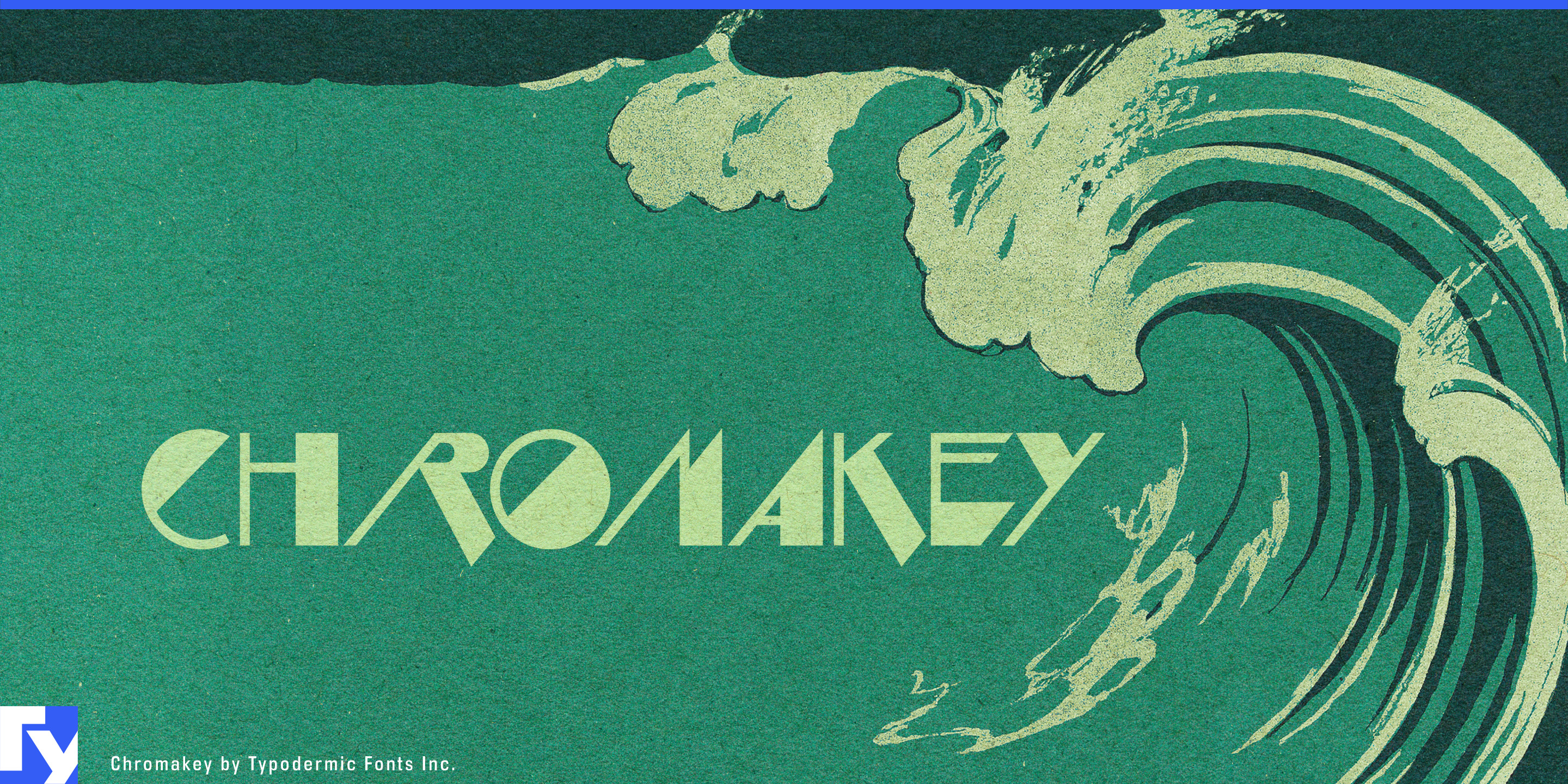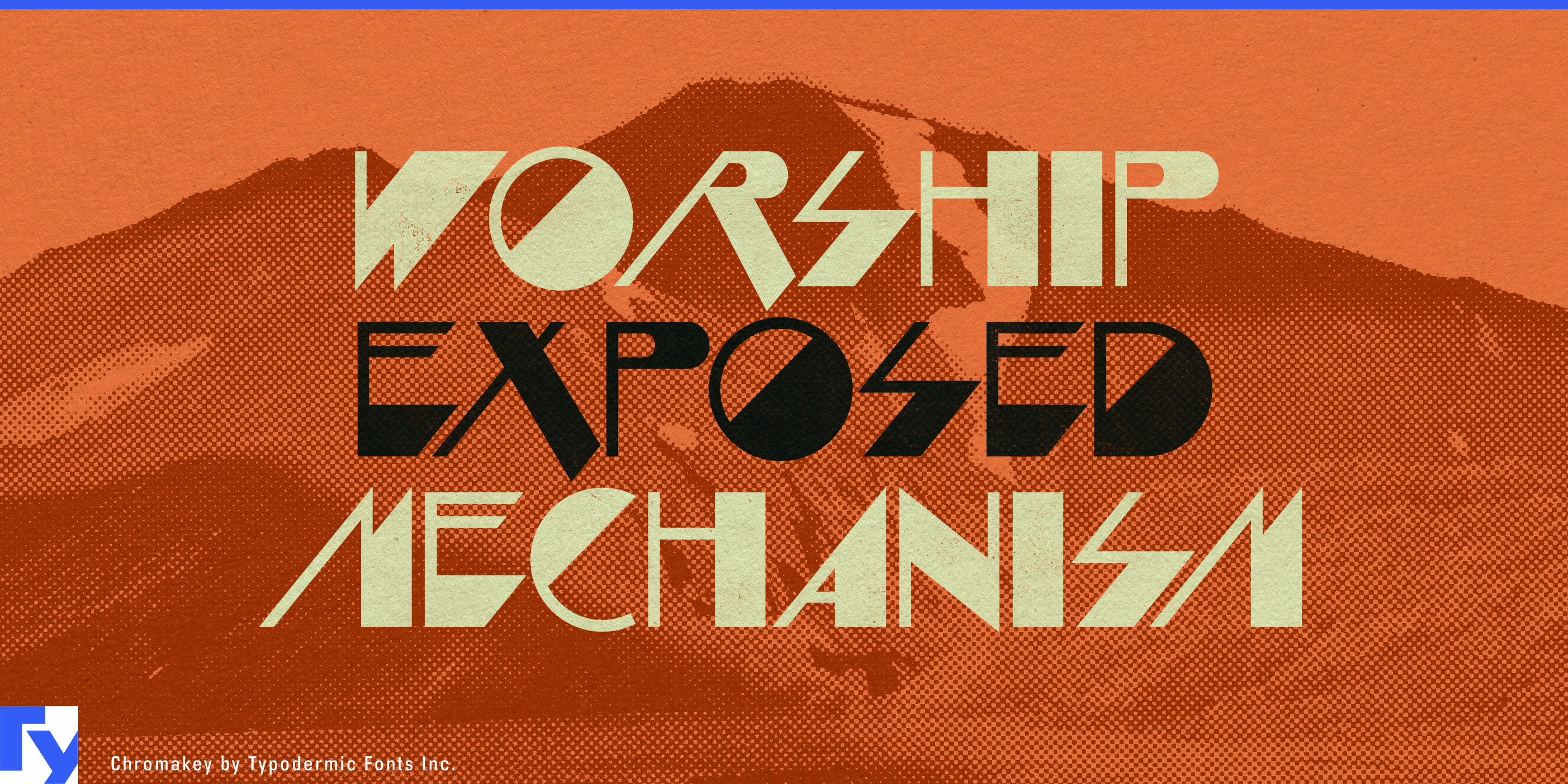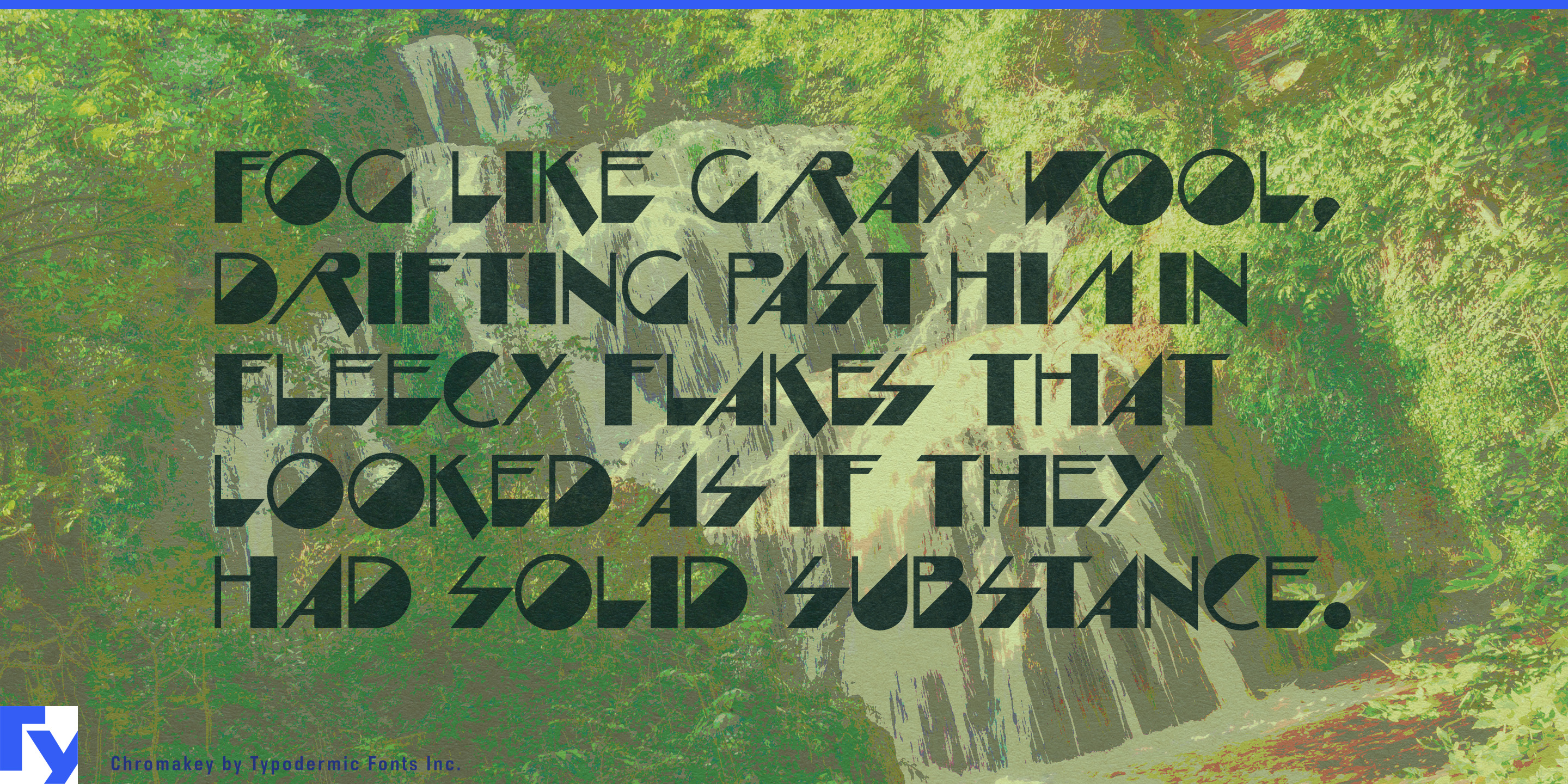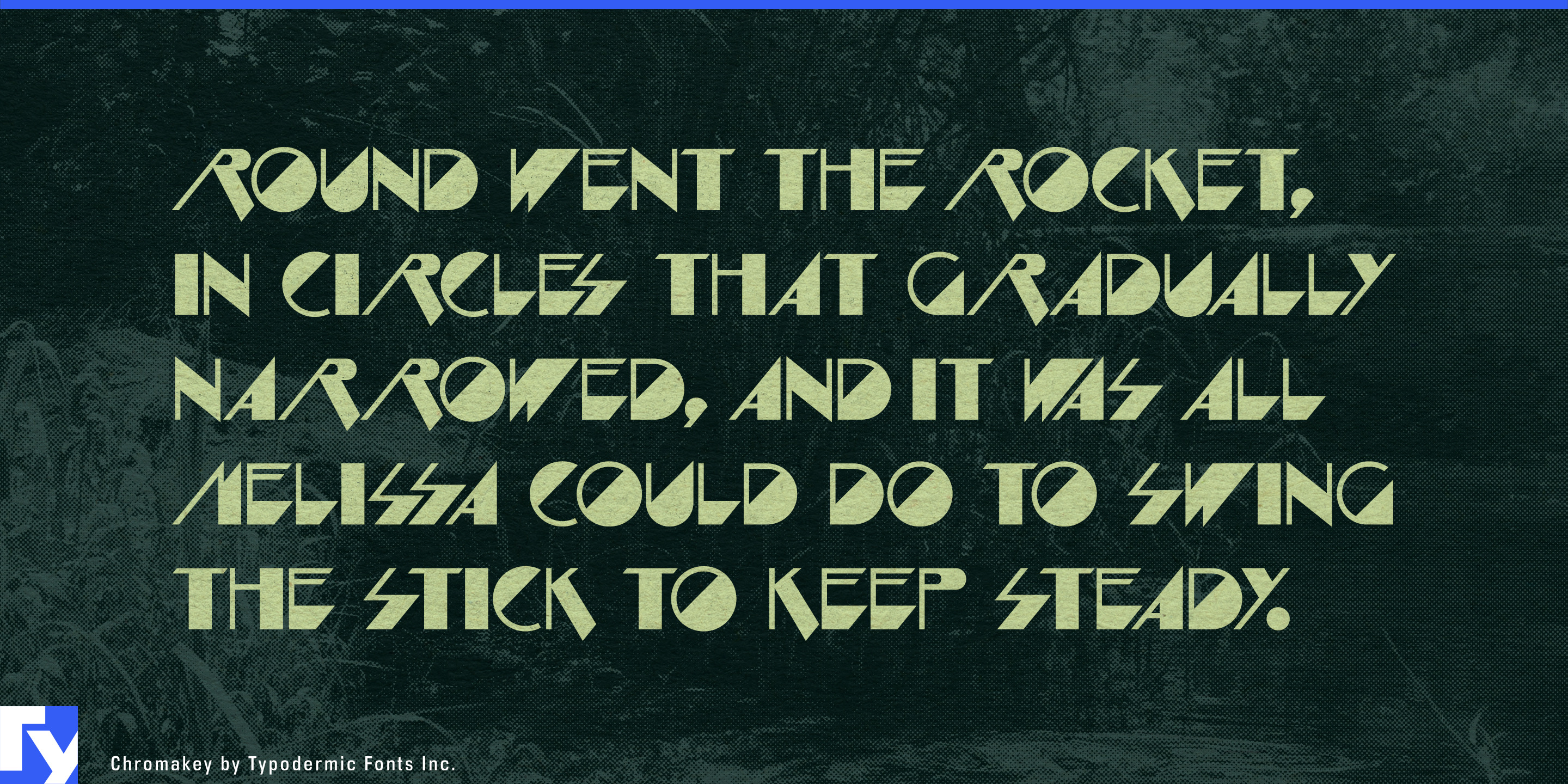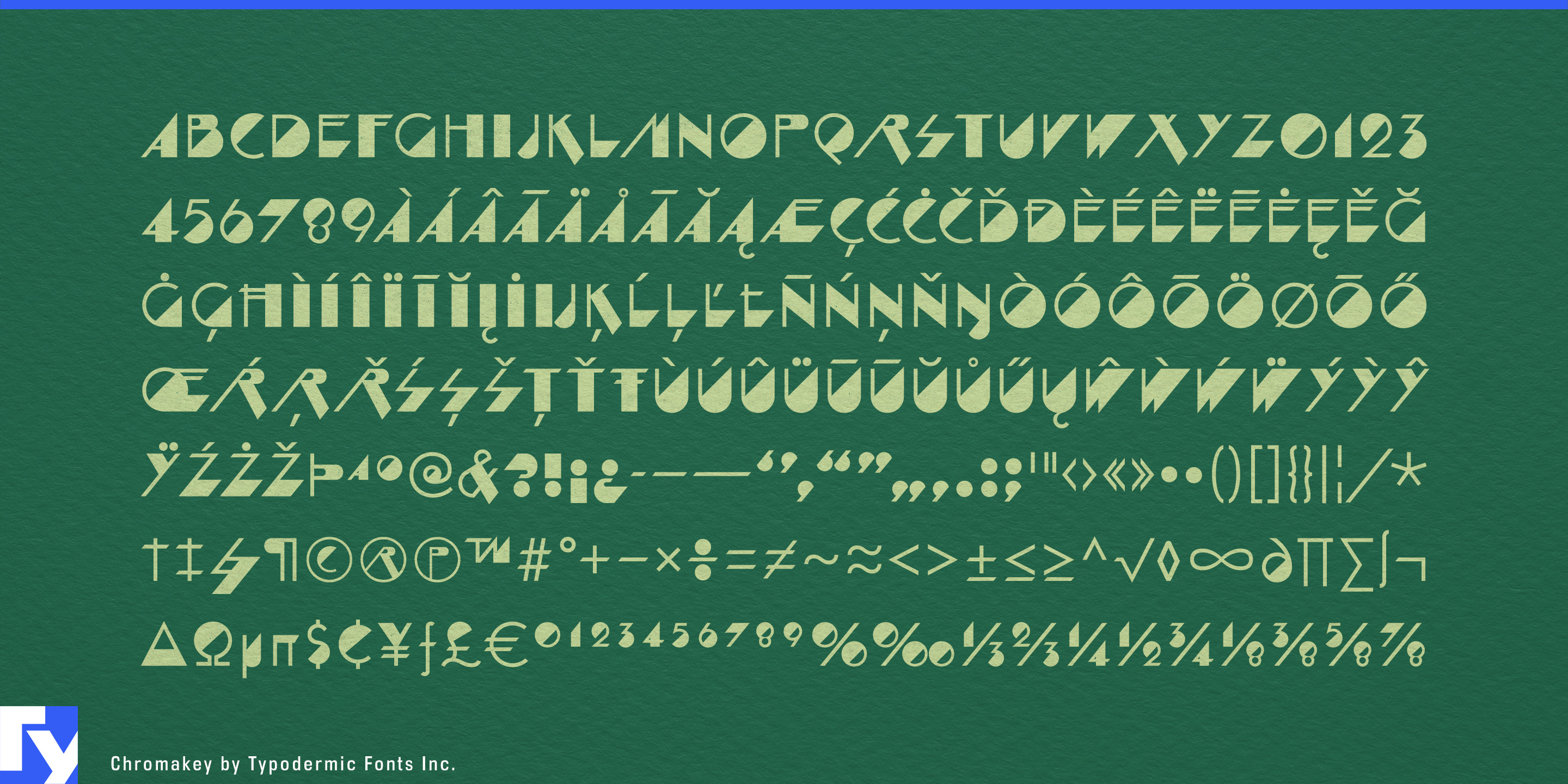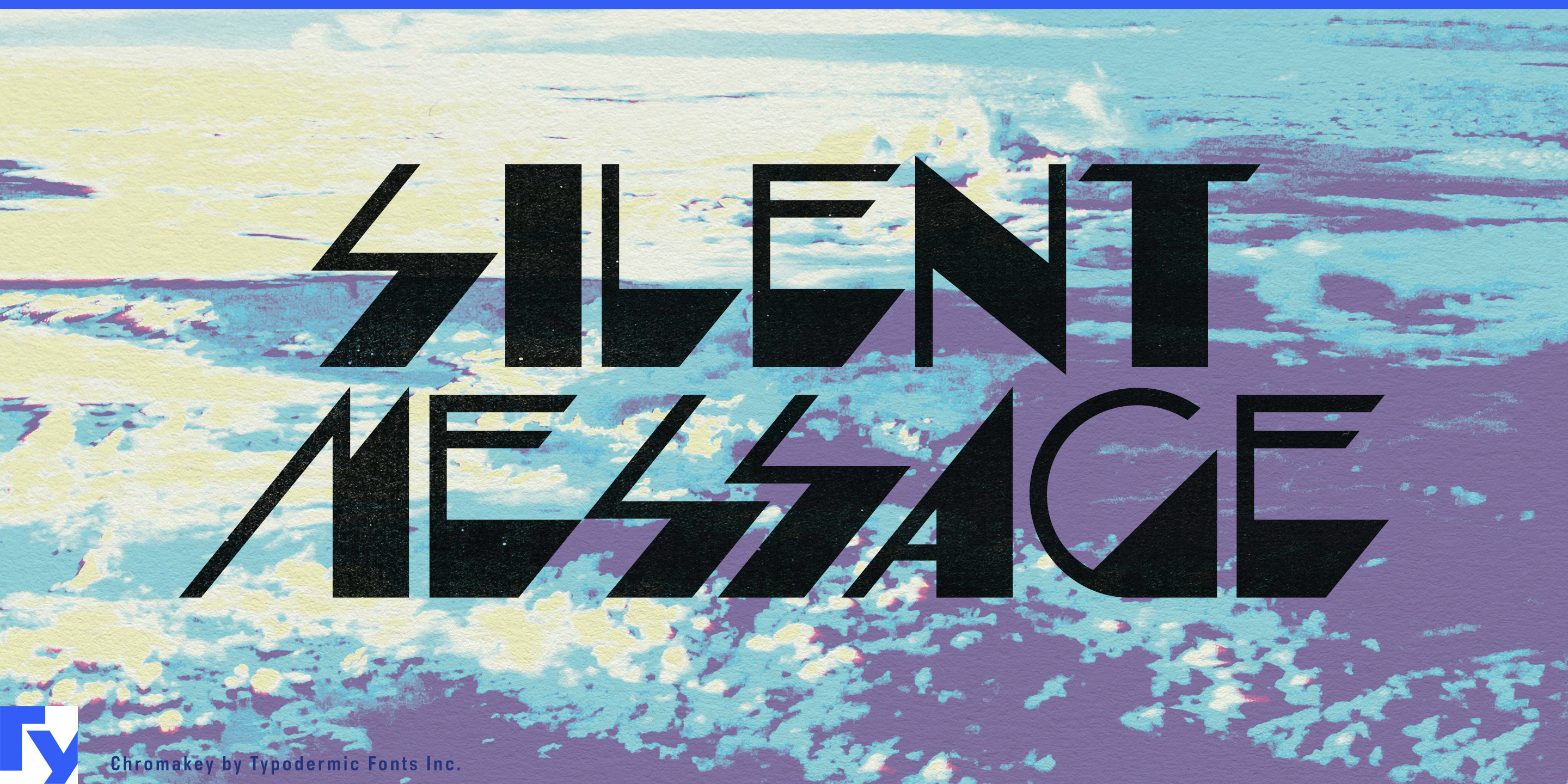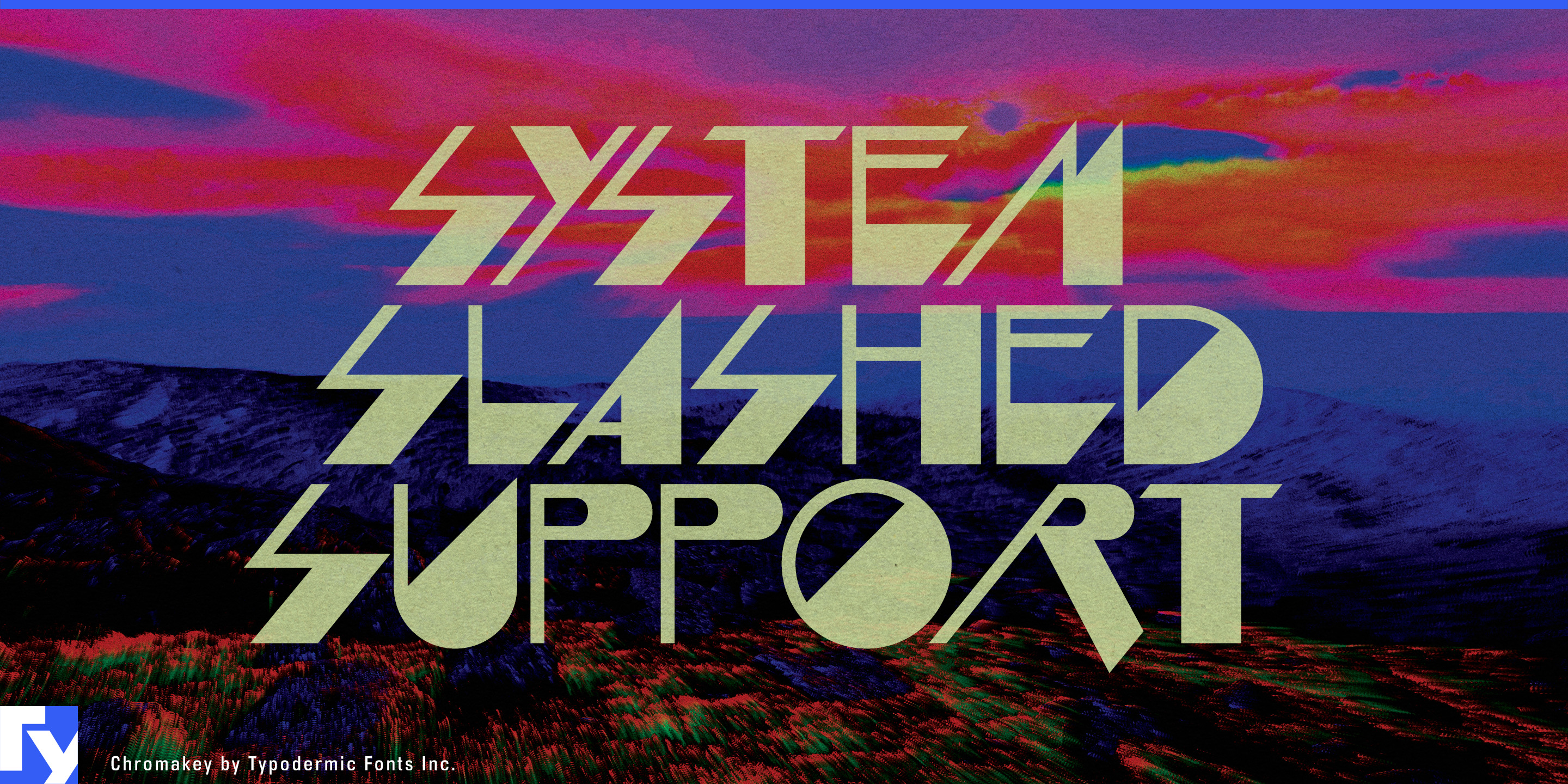
Chromakey
Some projects need more ceremony than a contemporary geometric sans can provide, but traditional Art Deco can make a brand-new building, product, or venue feel like a historical revival. The challenge is creating glamour, monumentality, and decorative tension without slipping into period costume.
Chromakey takes familiar Deco ingredients and sends them somewhere stranger. Broad architectural forms, near-perfect circles, sharp wedges, narrow diagonals, and lightning-like interruptions combine into an all-caps display face that feels ceremonial but displaced from ordinary twentieth-century history. It works best when the name itself needs to carry spectacle while another typeface handles the practical information around it.
Branded residences and high-end residential towers are a particularly strong setting. Chromakey can handle tower names, penthouse collections, sky lounges, private dining rooms, pool decks, and observation spaces across architectural renderings, sales-gallery walls, illuminated hoardings, launch films, building entrances, and permanent metal or stone lettering.
Integrated resorts create an even wider range of naming opportunities. Theaters, cocktail lounges, signature restaurants, spas, rooftop venues, observation spaces, and private hospitality areas each need identities of their own. Chromakey can give those names enough visual ceremony for illuminated entrance signs, feature walls, menu covers, key-card graphics, reservation screens, and launch campaigns while leaving functional wayfinding to a quieter companion face.
Prestige fragrance presents the same problem at a smaller scale. A fragrance name may need to dominate a glass bottle, carton, counter display, duty-free installation, launch film, or temporary pop-up while the house typography handles ingredients and regulatory copy. Chromakey’s circles, facets, and abrupt cuts lend themselves naturally to short names and physical treatments such as foil, embossing, etched glass, mirrored surfaces, and translucent display materials.
Ultra-luxury cruise hospitality provides another contemporary descendant of Deco-era glamour without requiring historical imitation. Observation lounges, specialty restaurants, cocktail bars, spas, theaters, private dining rooms, and premium suite collections all need memorable names that can work across entrance lettering, menus, embarkation graphics, launch campaigns, and large interior installations.
At the high end of electric mobility, Chromakey can take on concept-car names, bespoke edition identities, grand-tourer reveal films, motor-show installations, private preview invitations, and showroom feature walls. It suits the moment when a new machine is presented as an object of desire rather than a collection of engineering specifications.
Chromakey can also move naturally into speculative production design. Orbital hotels, future casinos, first-class spacecraft lounges, off-world restaurants, elite residential towers, and extravagant entertainment districts need a different kind of science-fiction typography than laboratories and military hardware. Chromakey provides something closer to Art Deco from a civilization that never had ours.